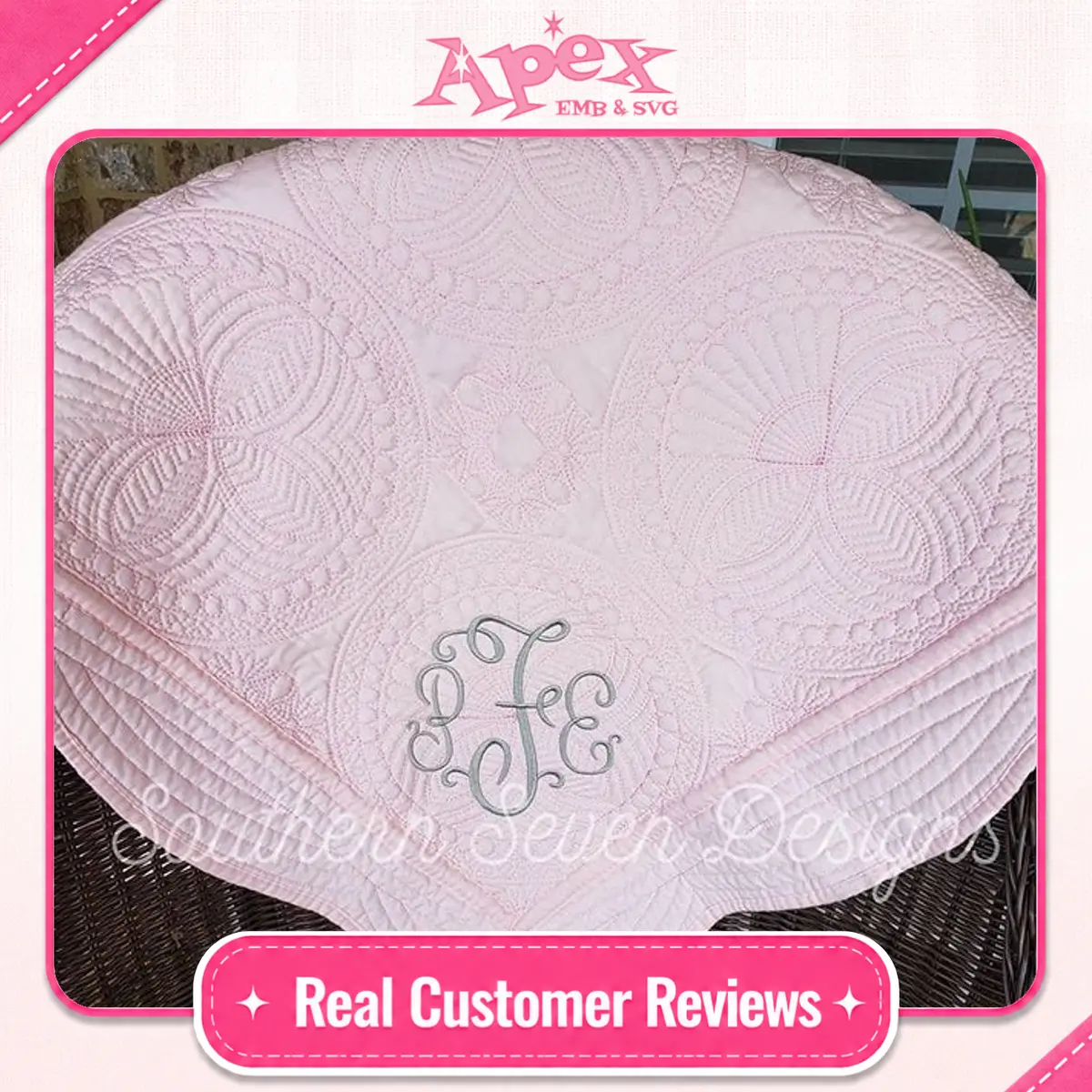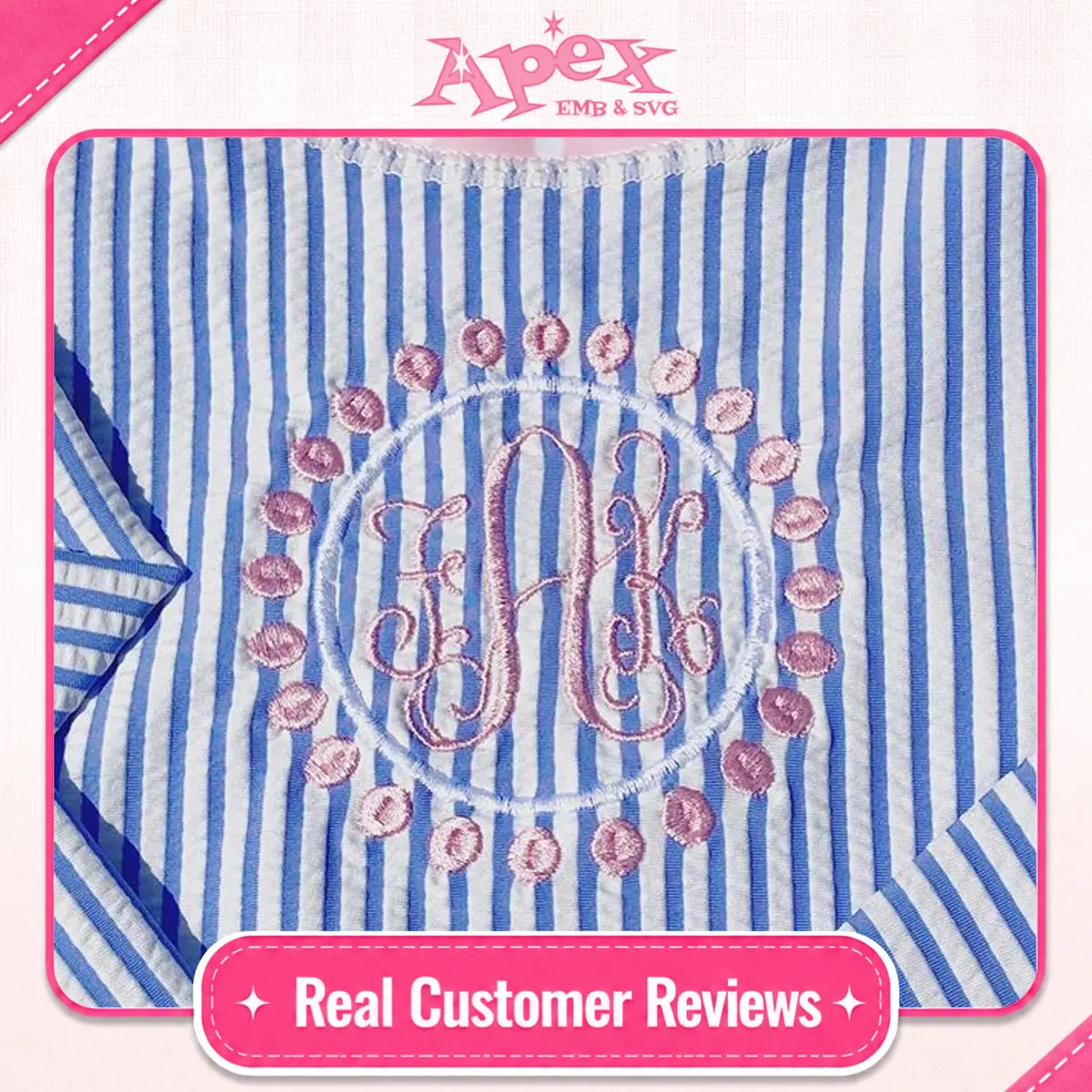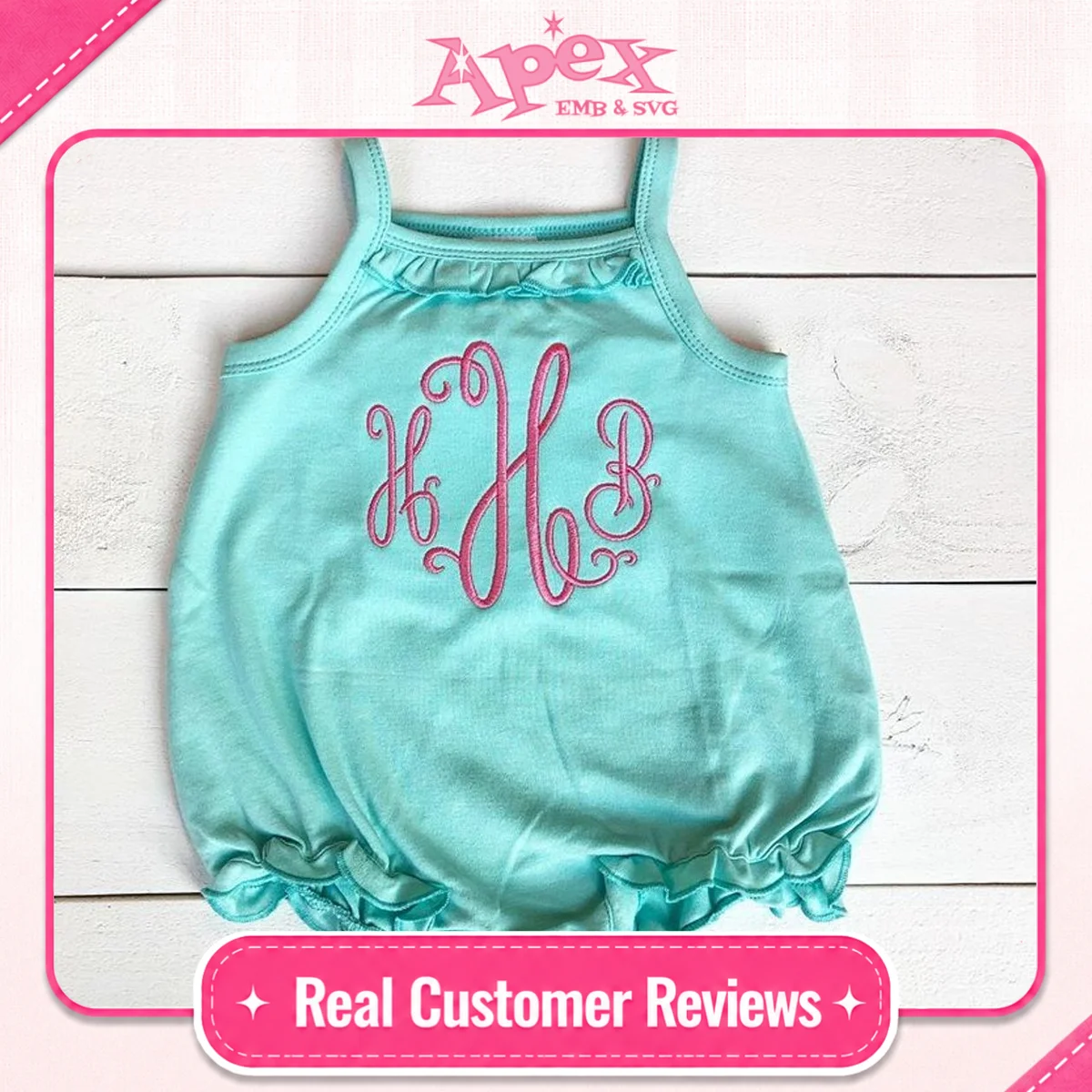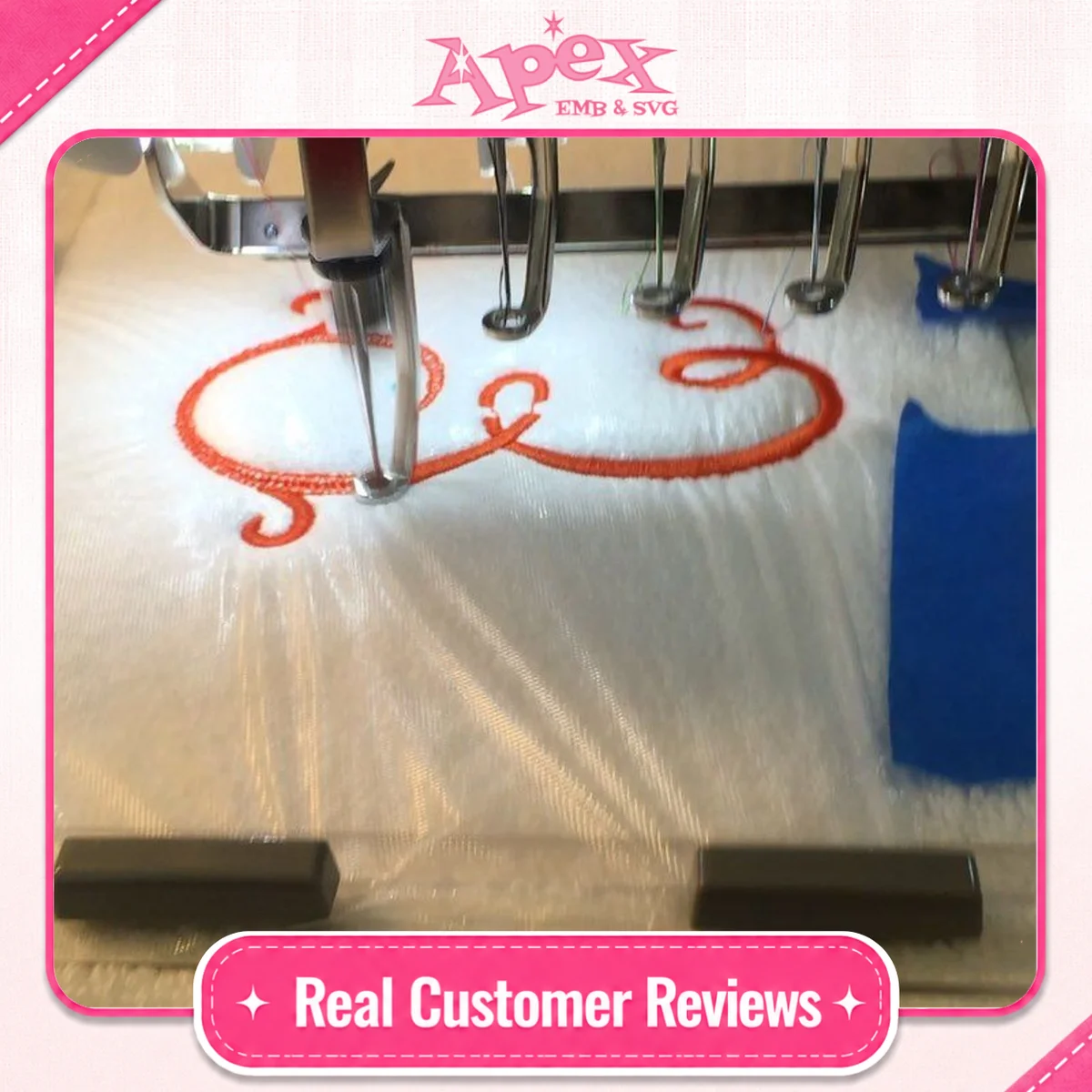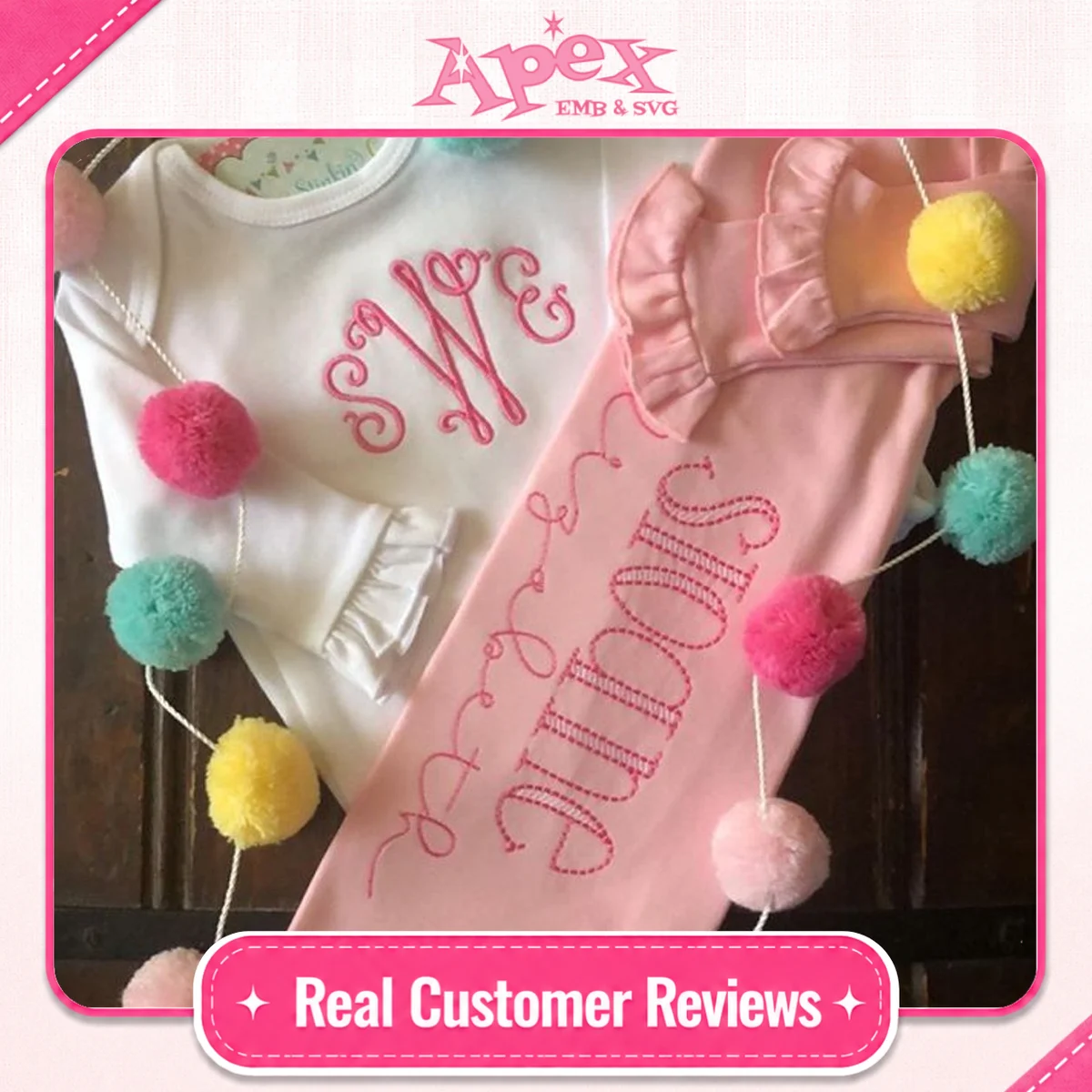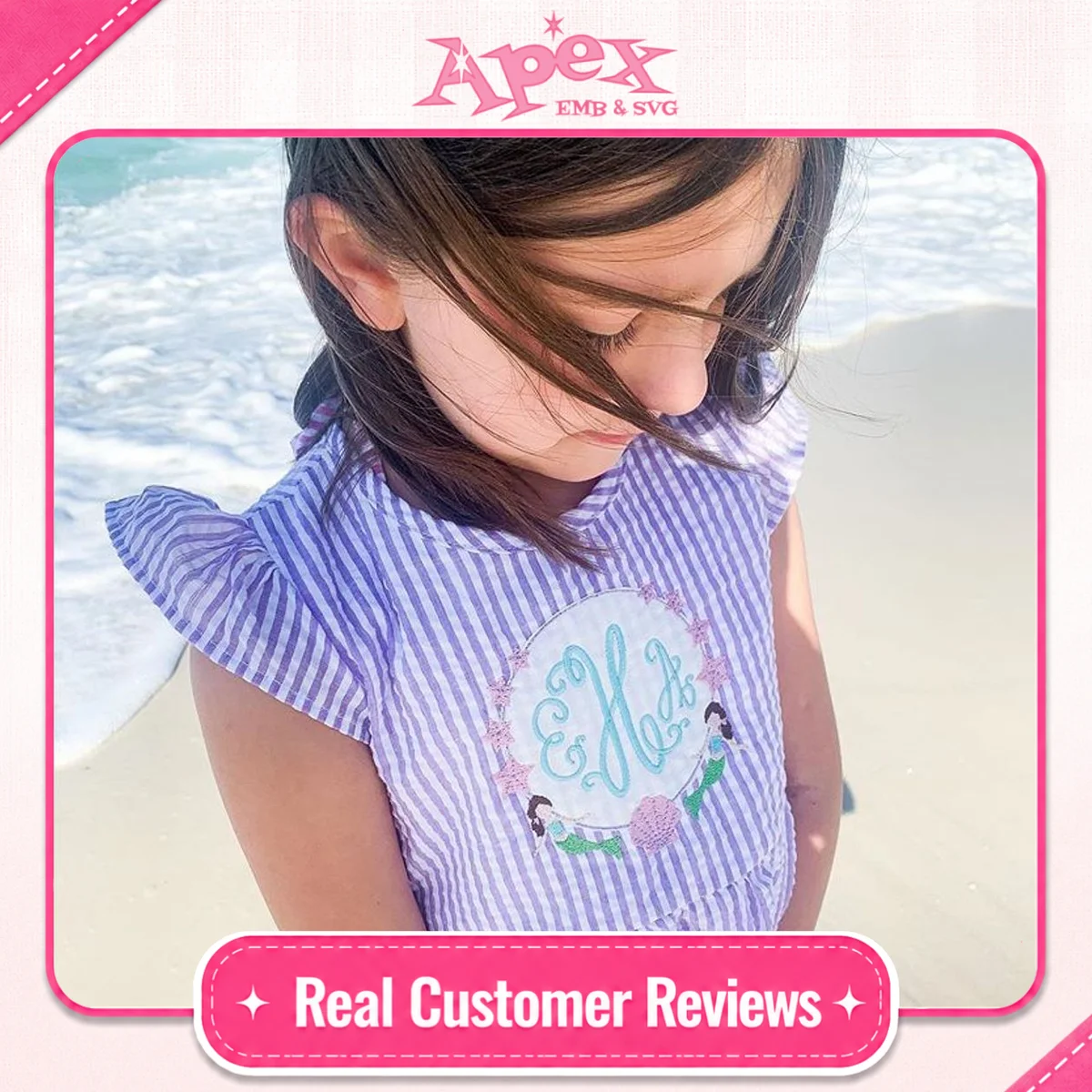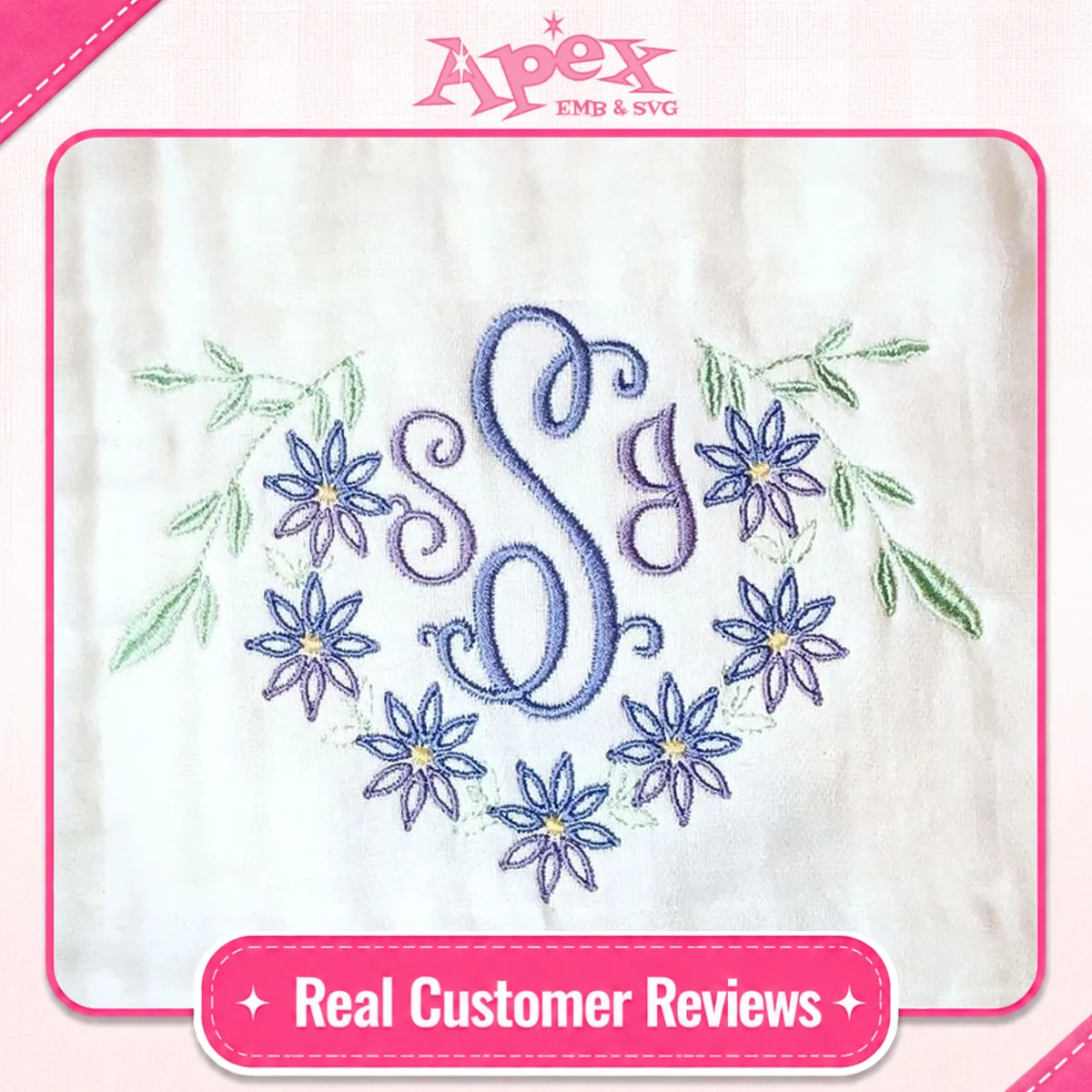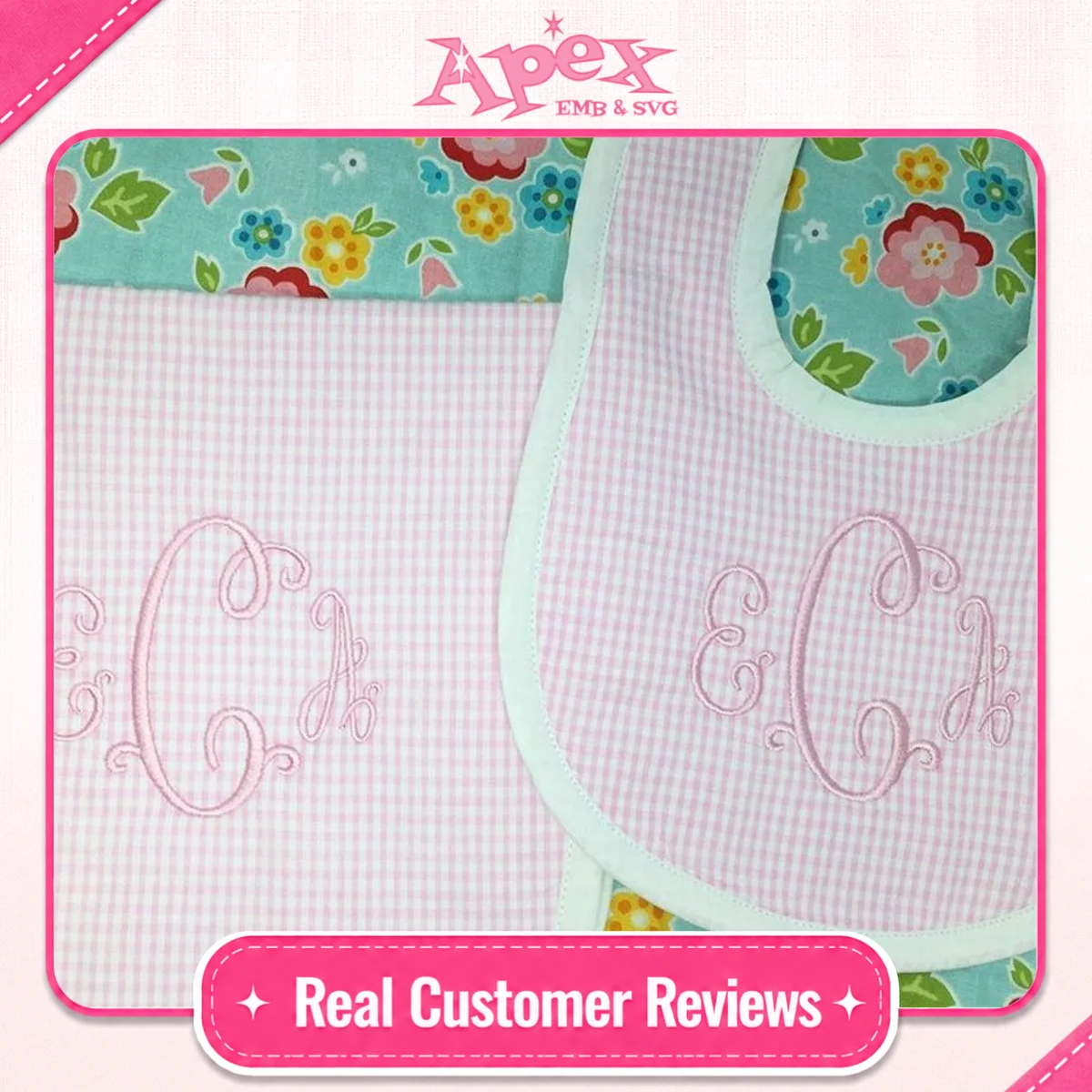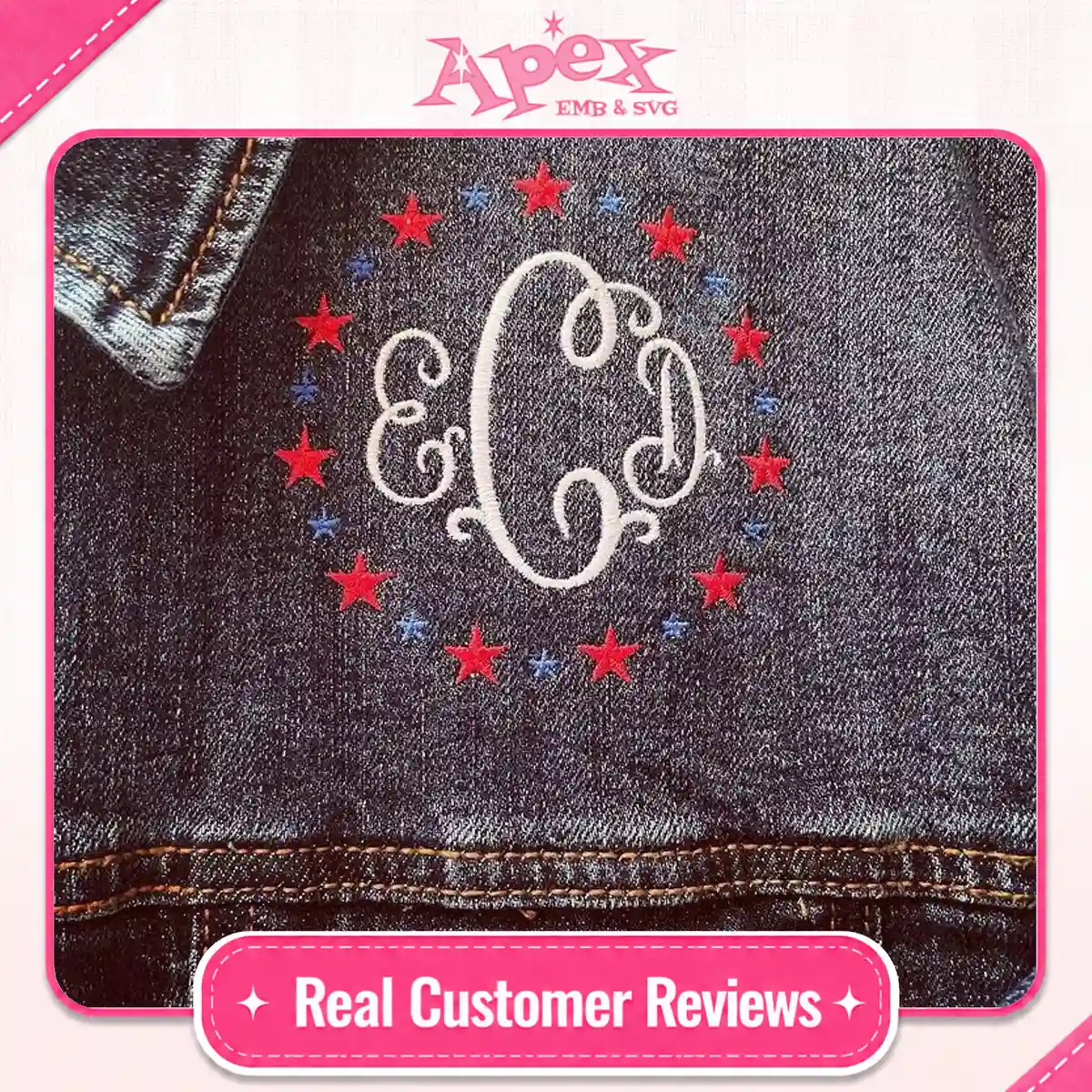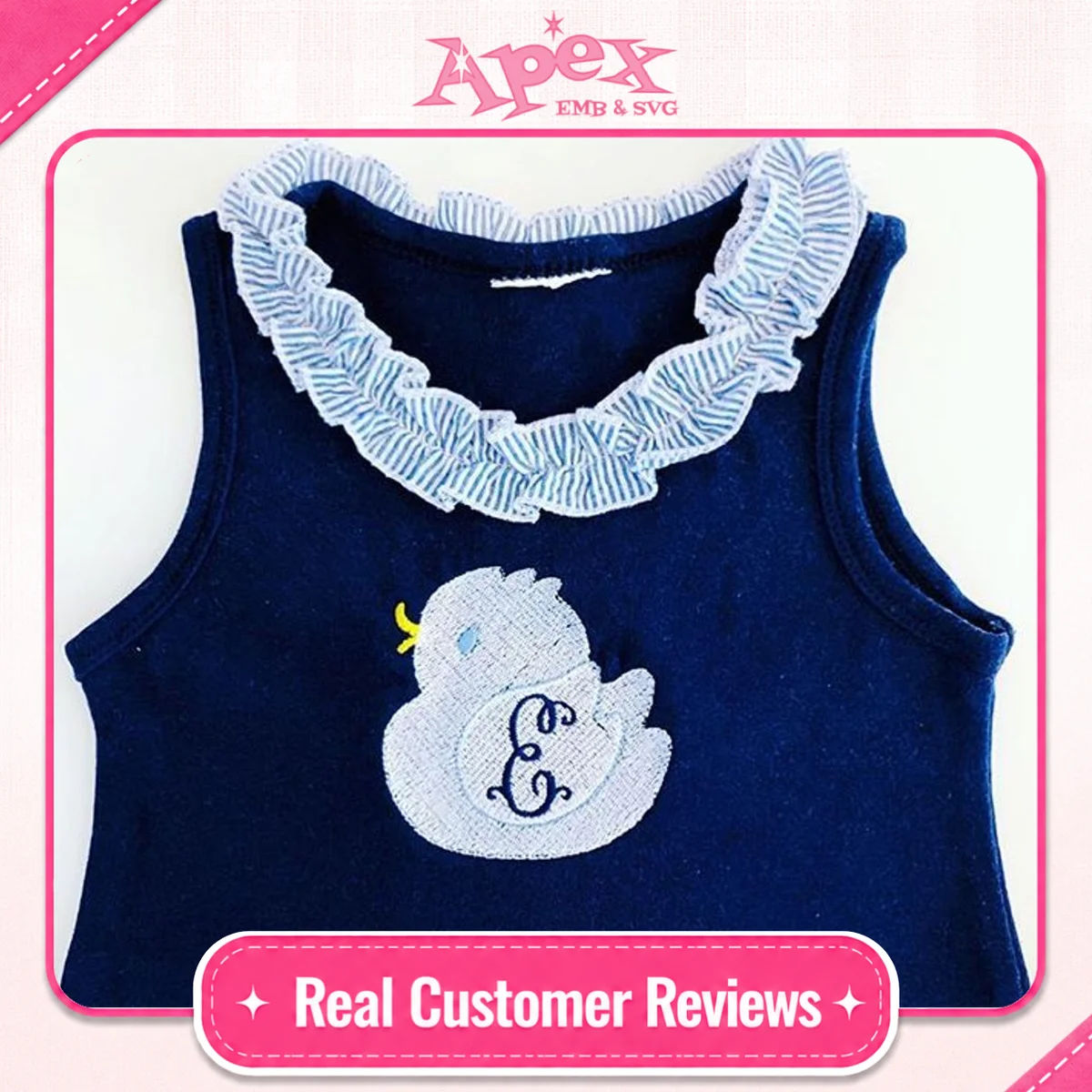
Mia Monogram Embroidery Font
Slender calligraphic curves meet balanced embroidery craftsmanship in Mia Monogram. Digitized with deliberate restraint, graceful satin curves breathe romance into heirloom cloth. Tall center letters command quiet authority while delicate side flourishes curl outward, framing initials in timeless oval symmetry. Every stitch path honors vintage hand-lettering traditions, transforming plain fabric into treasured family heirlooms through pure thread elegance.
Project Ideas for Mia Monogram
Mia Monogram transforms blank textiles into bespoke statements across luxury gifting and home decor projects:
- Luxury Table Linens: Embroider crisp linen cocktail napkins and formal dinner runners with subtle tone-on-tone rayon thread.
- Bridal Robes & Wedding Keepsakes: Stitch sweeping monograms onto silky bridal robes, getting-ready wraps, and ring pillows for unforgettable celebrations.
- Bespoke Resort Wear: Adorn linen button-downs, cover-ups, and summer sun hats with personalized coastal flair.
- Heirloom Bedding & Nursery: Personalize percale pillowcases, duvet covers, and plush baby blankets for lasting sentimental beauty.
- Canvas Totes & Travel Bags: Add polished identity marks to heavy cotton totes, cosmetic bags, and weekender duffels.
Proper placement ensures balanced visual weight across different garment styles and linens:
- Corner Diagonal: Angle monograms 45 degrees across cocktail napkin corners or hemstitch dinner napkins, set 1.5 to 2 inches from edges.
- Center Chest: Position balanced three-letter crests centrally on pajama pockets, sleep shirts, and bridal loungewear.
- Cuff & Hem: Stitch understated initials along shirt cuffs, dress hems, or sleeve edges for subtle tailored distinction.
- Border Alignment: Center initials along hem borders on guest towels, heirloom sheets, and decorative table runners.
Mia Monogram Craft & Letterform Details
Design inspiration draws from early twentieth-century ironwork and gilded Parisian stationery. Traditional three-letter monograms often feel heavy; Mia Monogram captures ethereal lightness through narrow-column satin stitch paths. Digitizing delicate letterforms requires precise underlay density. We calibrated foundation stitching to anchor slender strokes without burying thread into plush textiles. Side brackets arch gracefully, creating balanced oval silhouettes where tall central capitals harmonize with ornate flank letters. Smooth satin stitch flow follows natural pen pressure variations, producing luminous luster across every curve and serif curl. Result: custom monogramming that remains crisp, flexible, and flawlessly refined across diverse fabrics.